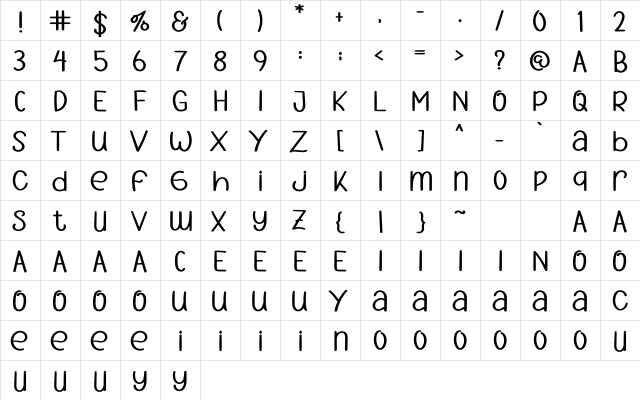
Elegant Style Regular
Design Context for Elegant Style Typeface
Elegant Style is a composed and adaptable typeface that performs quietly and consistently across a wide range of design contexts.